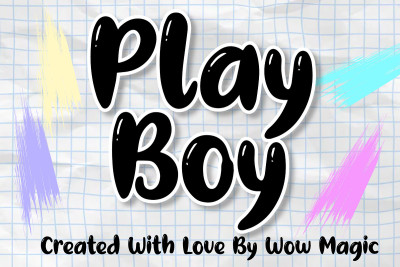
Play Boy Font
Play Boy is a thoughtfully constructed typeface that performs equally well in display and body text settings.
Common applications include business cards, posters, web headers, advertising materials, book covers, and corporate identity systems.